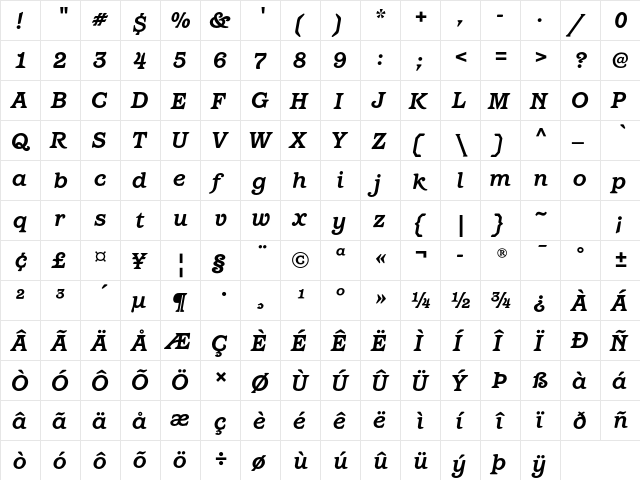
Barcelona ITC Std Bold Italic
| Designer | Edward Benguiat |
Design Context for Barcelona ITC Std Typeface
Barcelona ITC Std offers clean, dependable letterforms without strong stylistic allegiance, making it a practical choice for designers who need flexibility. The slanted form adds forward momentum and visual energy. The heavy weight commands attention and anchors typographic hierarchies.
Pro Tip: Use Barcelona ITC Std for emphasis, pull quotes, and subheadings where its slanted energy can add rhythm to the layout.